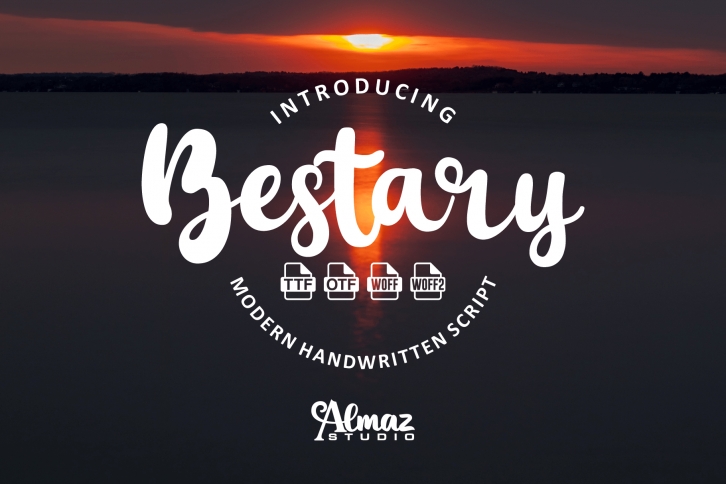
Bestary font is a minimalist script type fonts. Bestary font is a sophistication with its lettering. The script font is typical, with its loops and exaggerations. However, by using a line, itself to be more luxurious. Bestary font is a magnificent curved display font. This font is perfect for your creative ideas, both formal and informal. It has a modern style with a touch of creative ideas that is very suitable to be applied anywhere that requires creative ideas. Use it to add vintage and mystique flavor to any design! It’s ready and Perfectly fit for your logo designs, headline, music projects & social media posts, event poster, brand imagery, product packaging, quotes, merchandise, etc. and any product that requires writing. By using this font, all of your products will look luxurious, elegant, and attractive, please try and see the results. Special creative products for you, our products will give you an extraordinary experience.